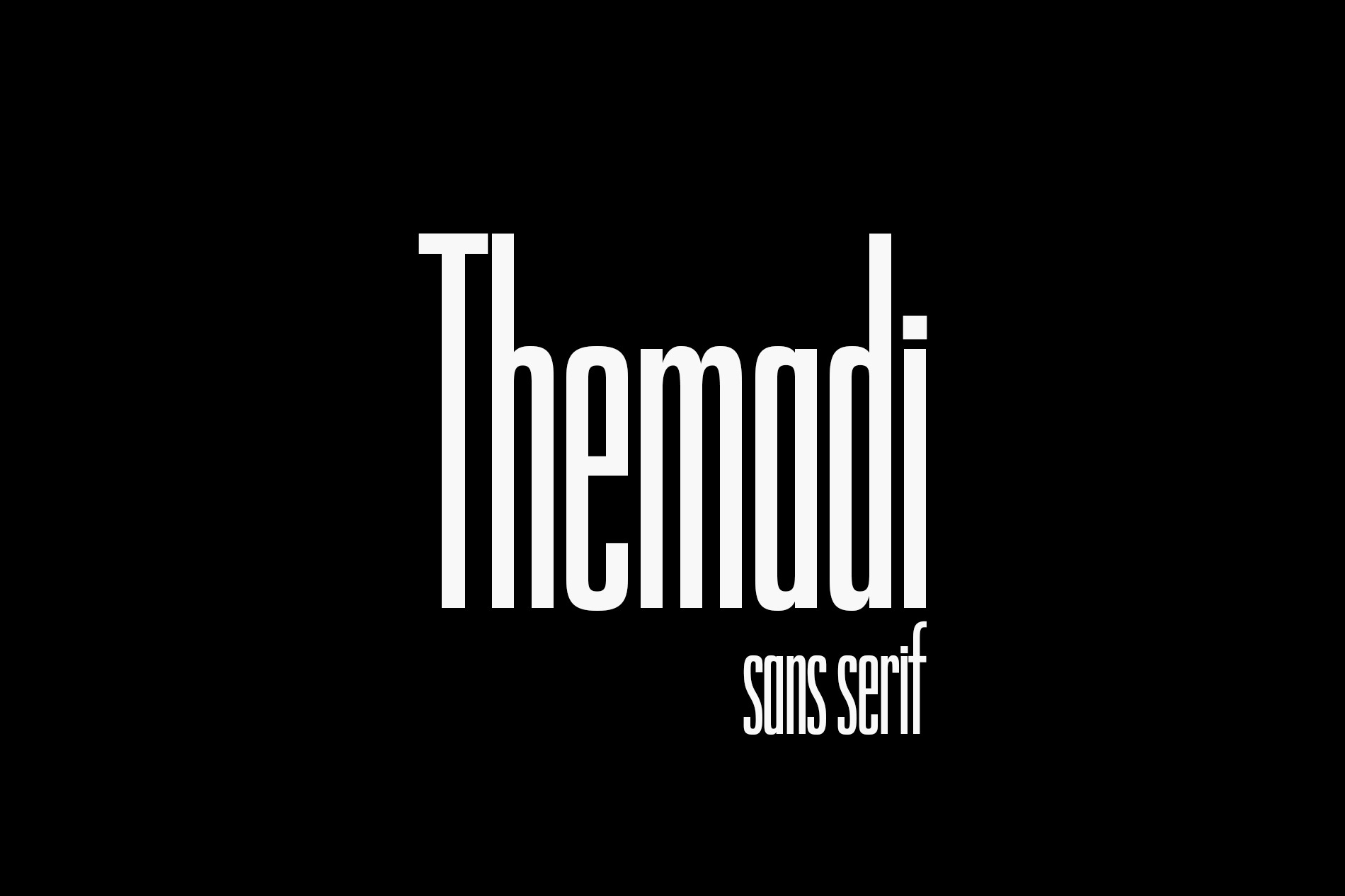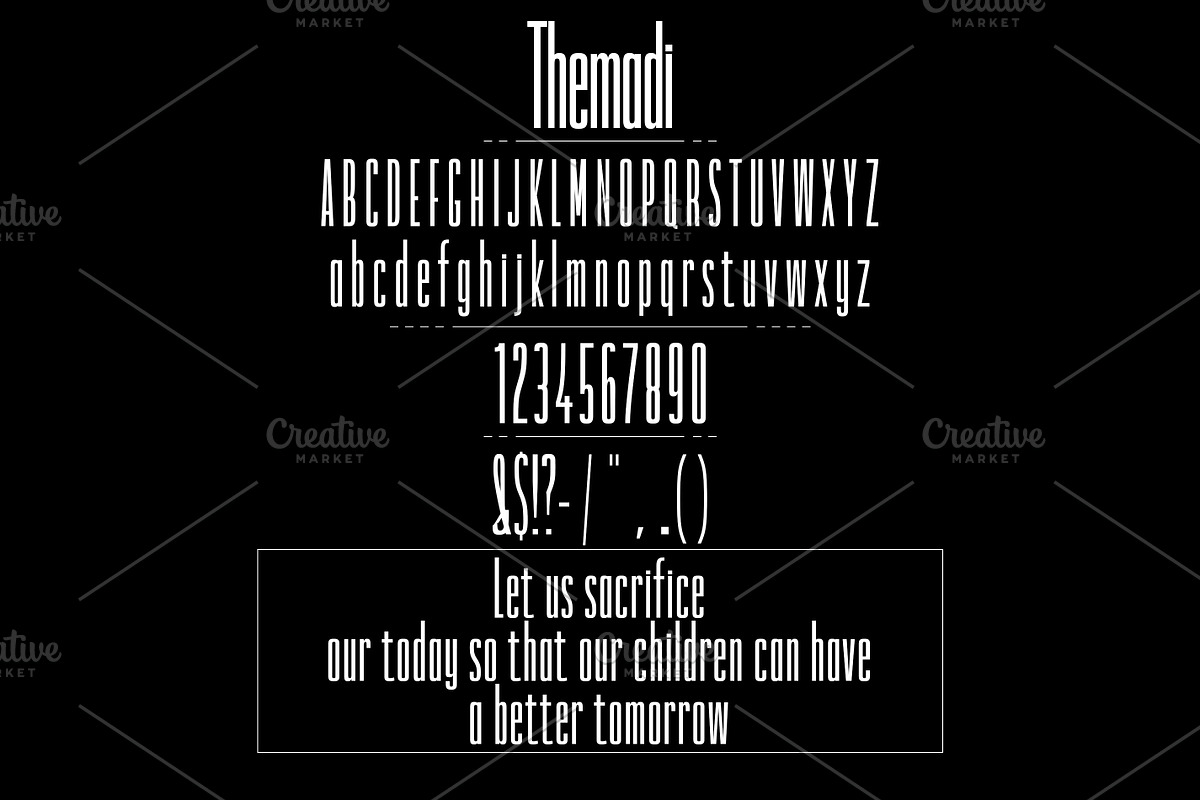
Themadi Sans-Serif Font
Themadi Sans Serif Font:
Elevate your designs with Themadi, a sleek and modern Sans Serif font featuring tall, thin, and minimalist characters. Its clean lines and contemporary aesthetic make it a versatile choice for a wide range of projects, from professional branding to creative layouts. Whether you're designing logos, business cards, magazine spreads, invitations, or packaging, Themadi's refined style will add a touch of elegance and sophistication.
- Logos and branding materials
- Magazine and editorial layouts
- Invitations and greeting cards
- Posters and headers
- Product packaging and labels
Themadi combines minimalism with timeless design, making it an essential addition to any designer's font collection.